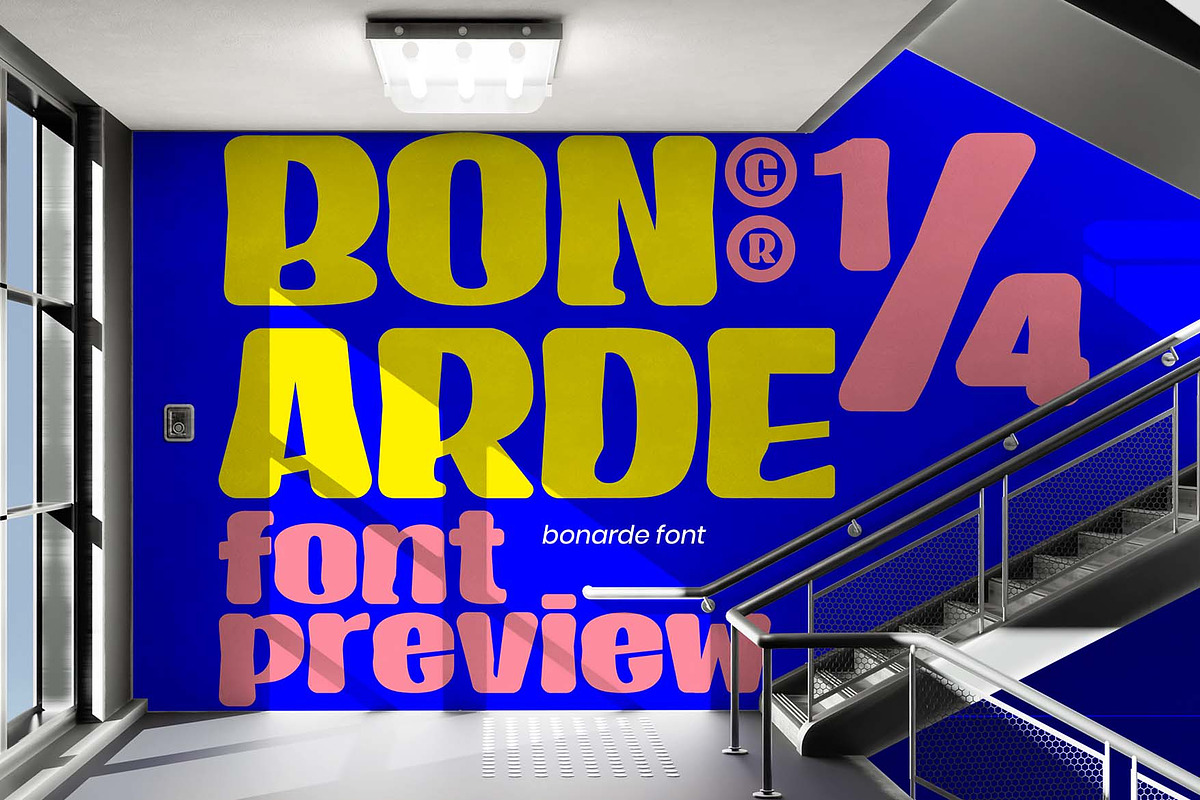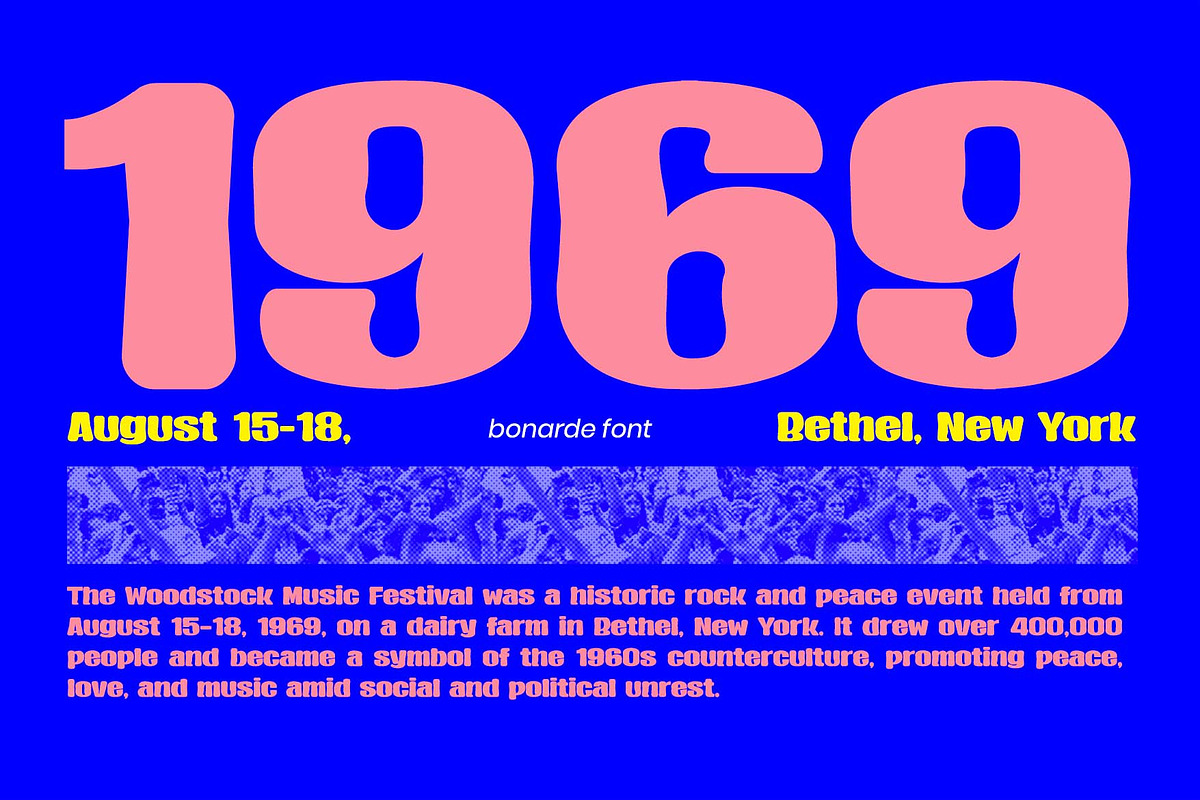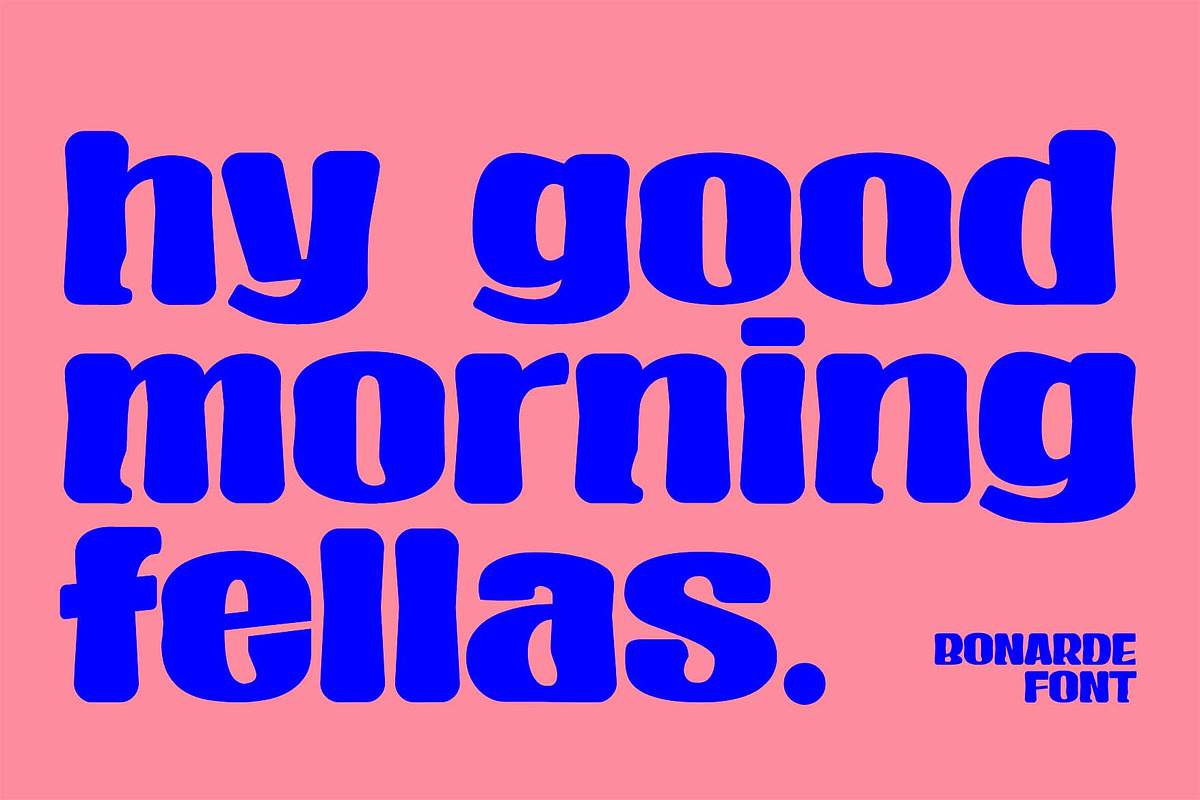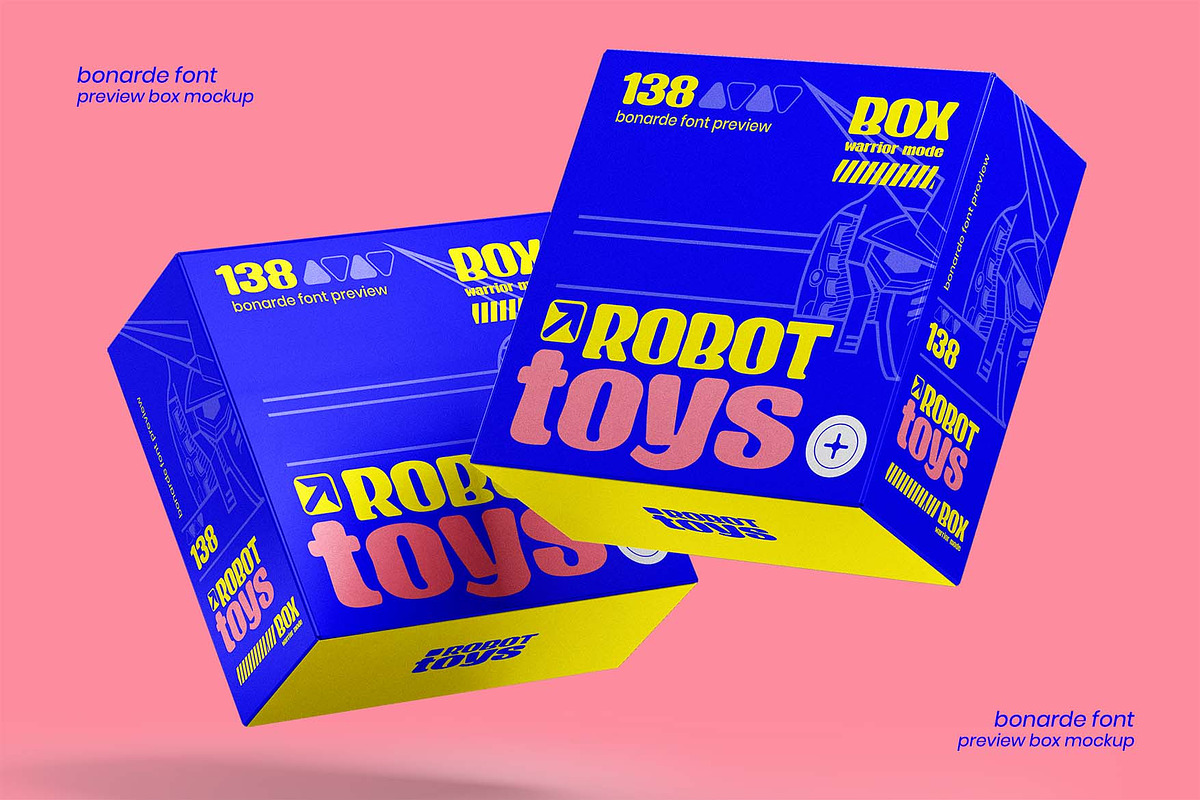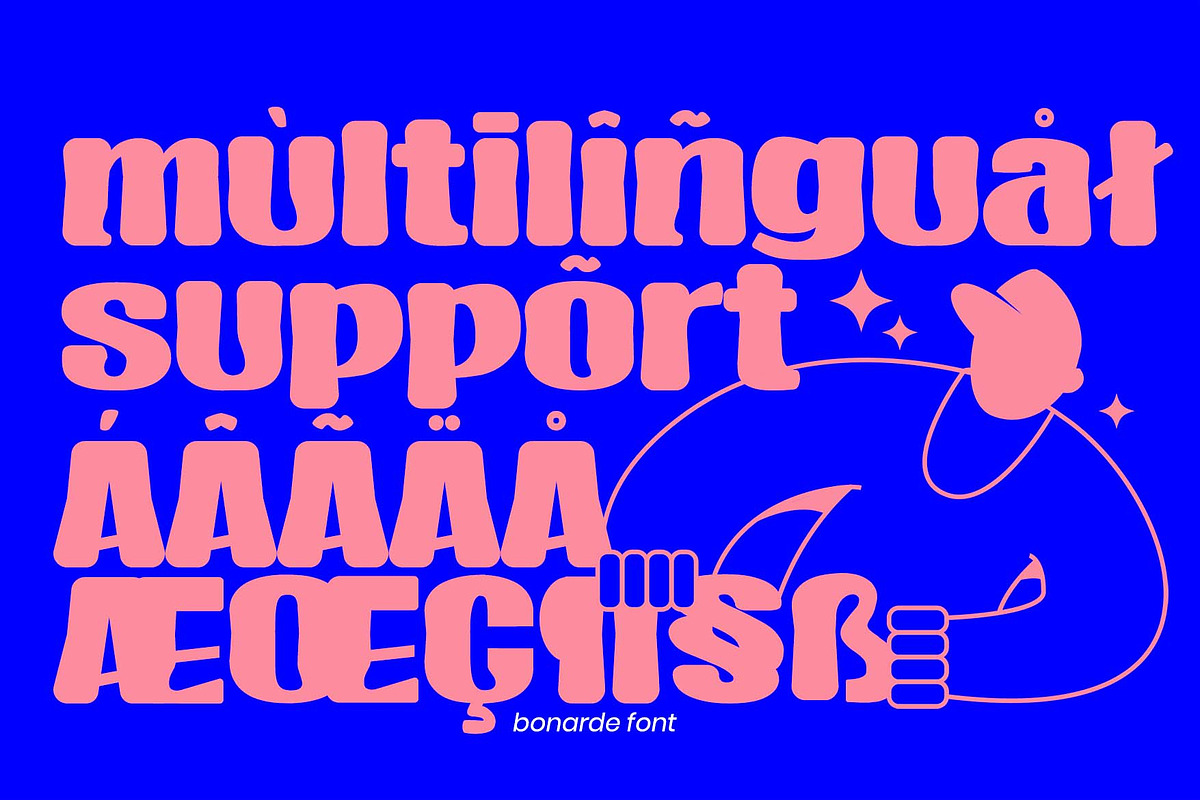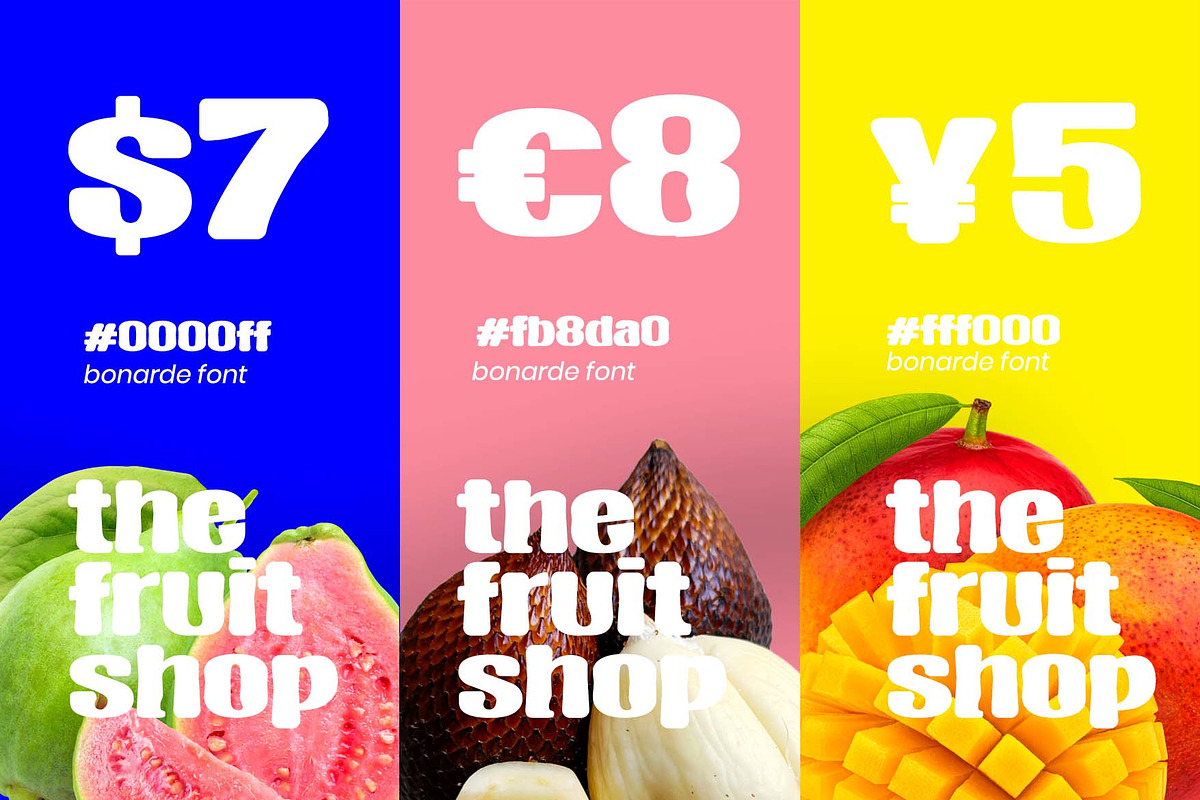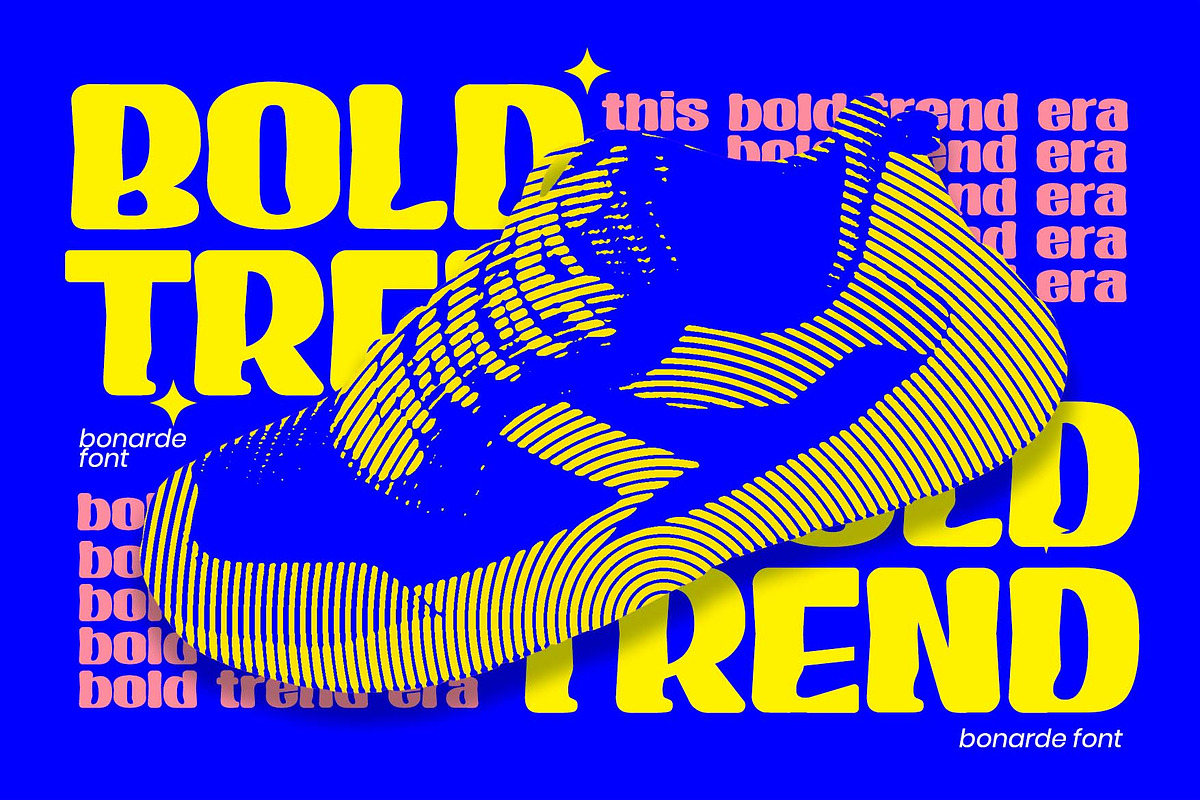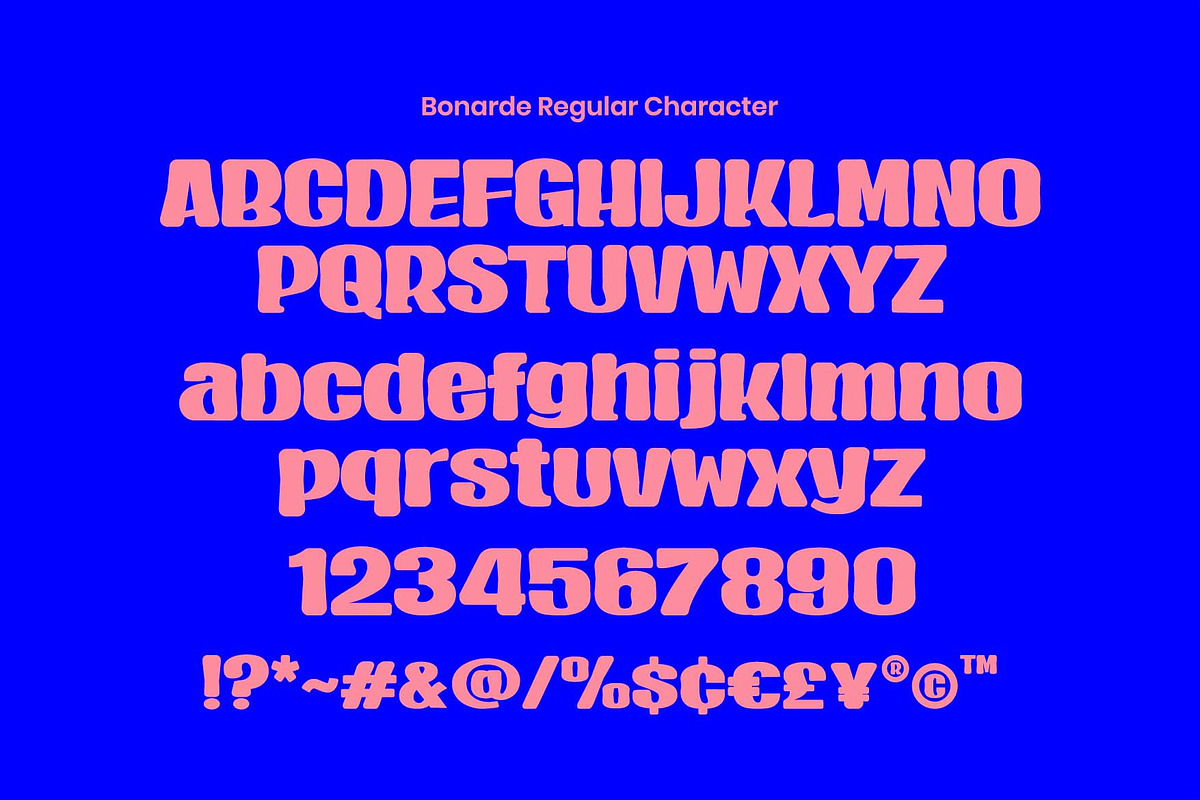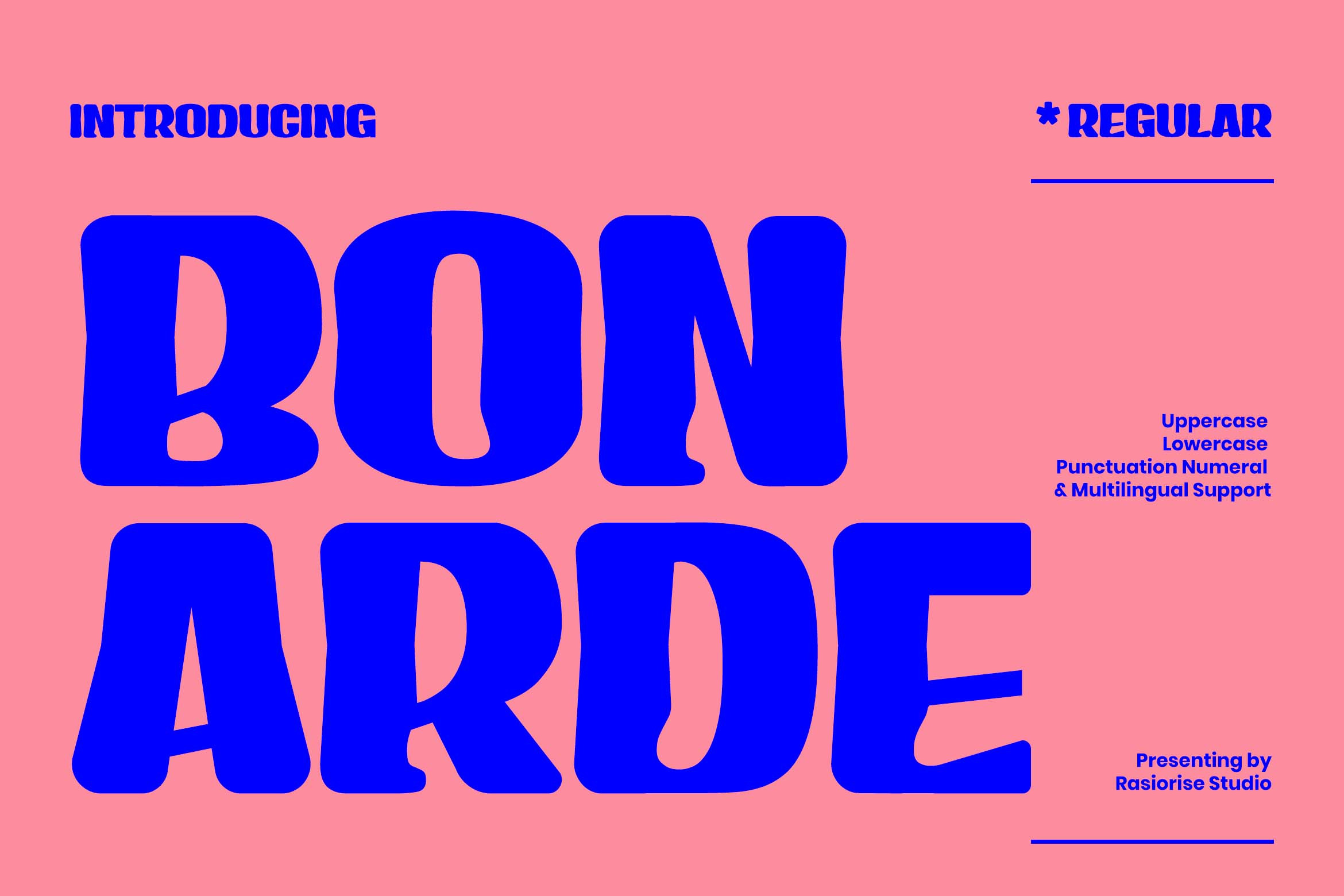
Bonarde a Sans Serif Display Font
Hi Everyone! Bonarde Font very suitable for Logotype, Book Cover, Music Festival, Event Branding, Gretting Card, Poster, Merchandise, Label, Packaging Label and much more.
- Numeral, Punctuation & Symbol